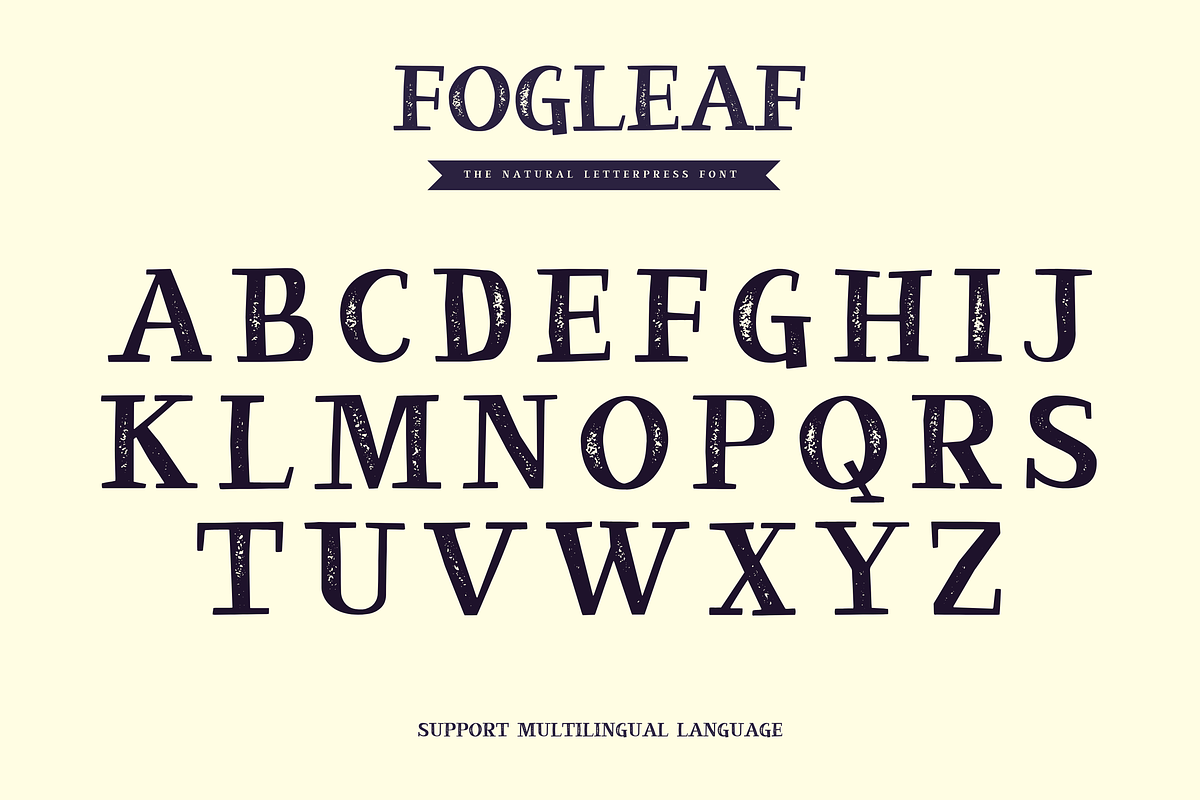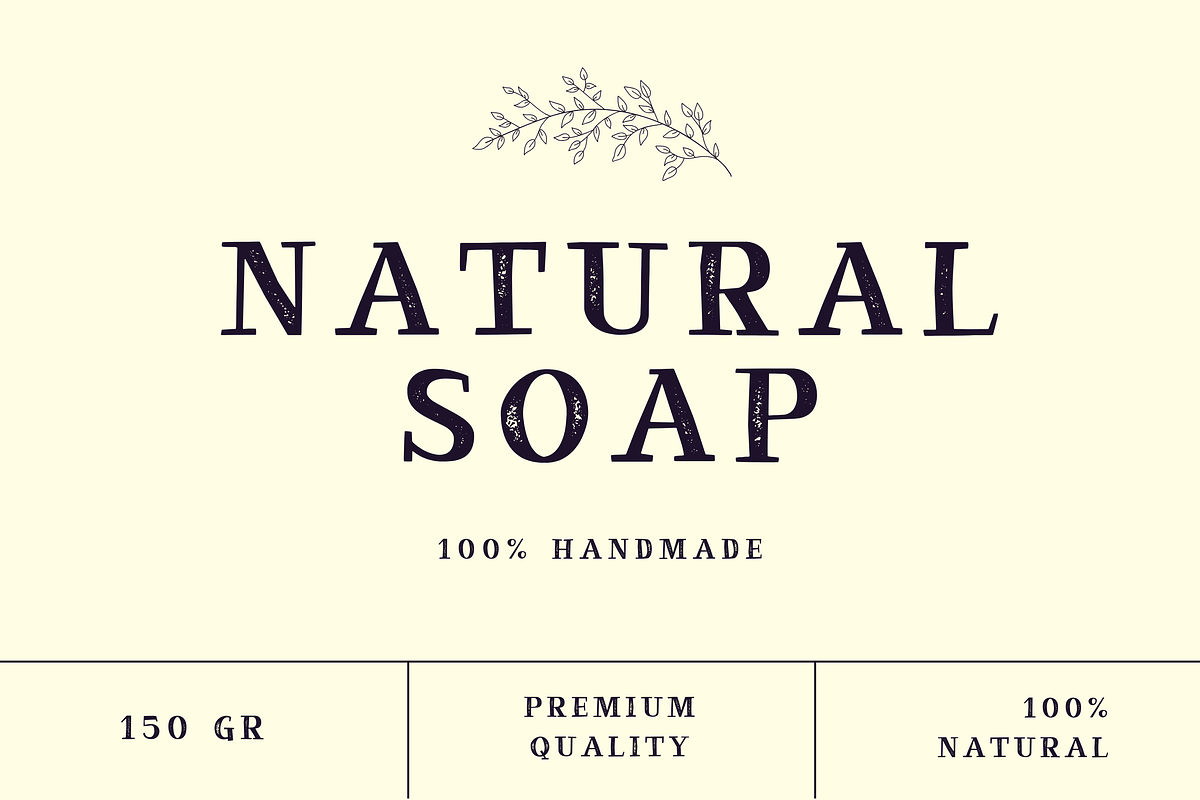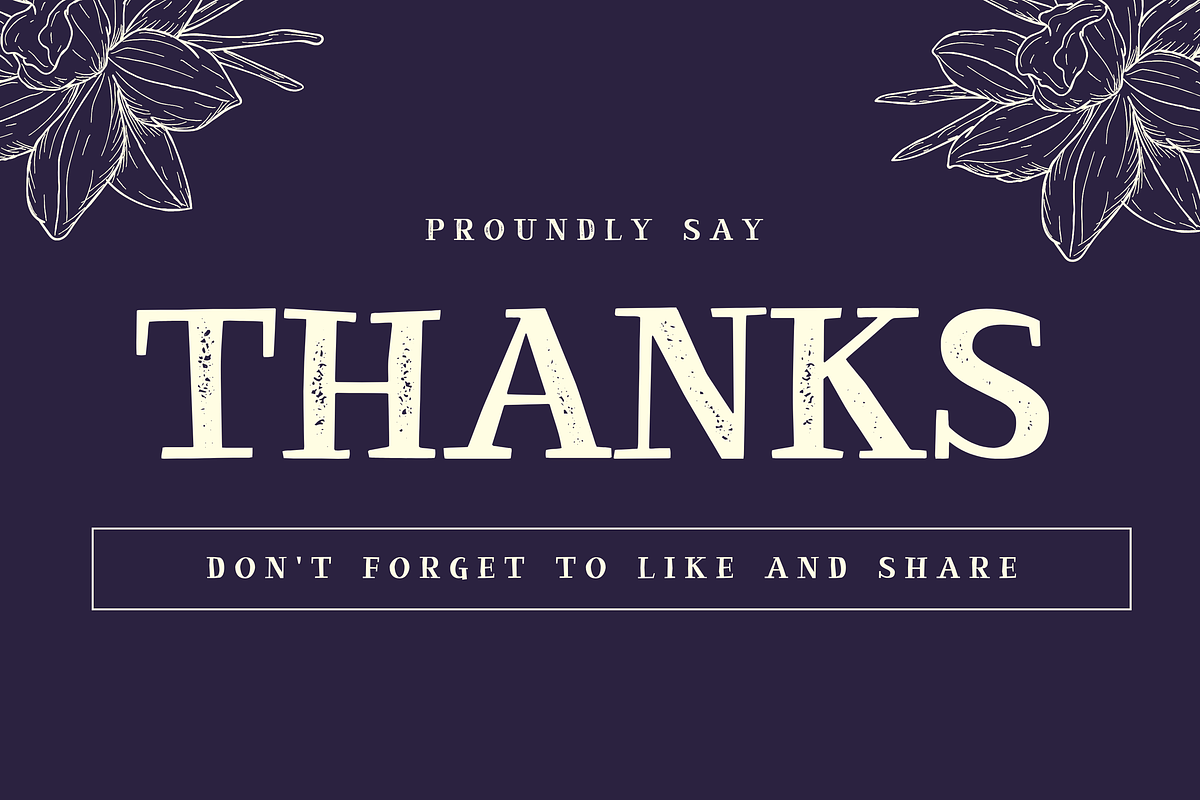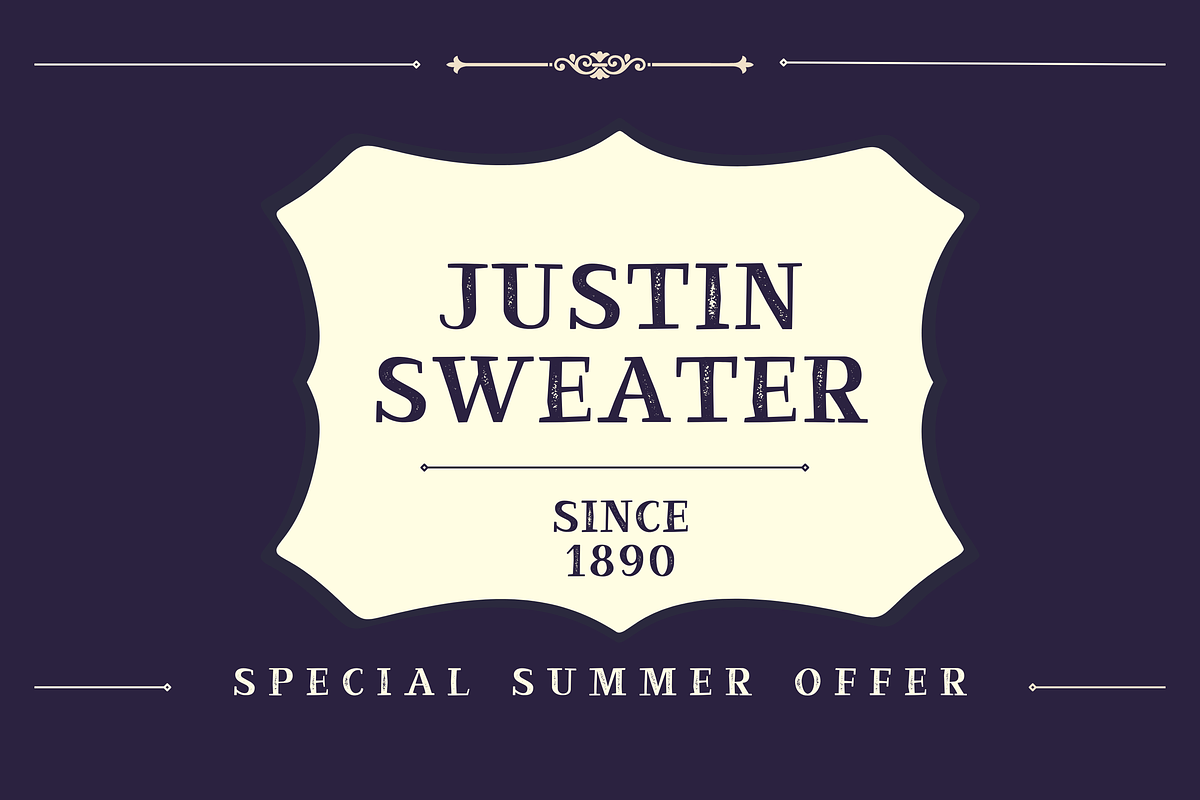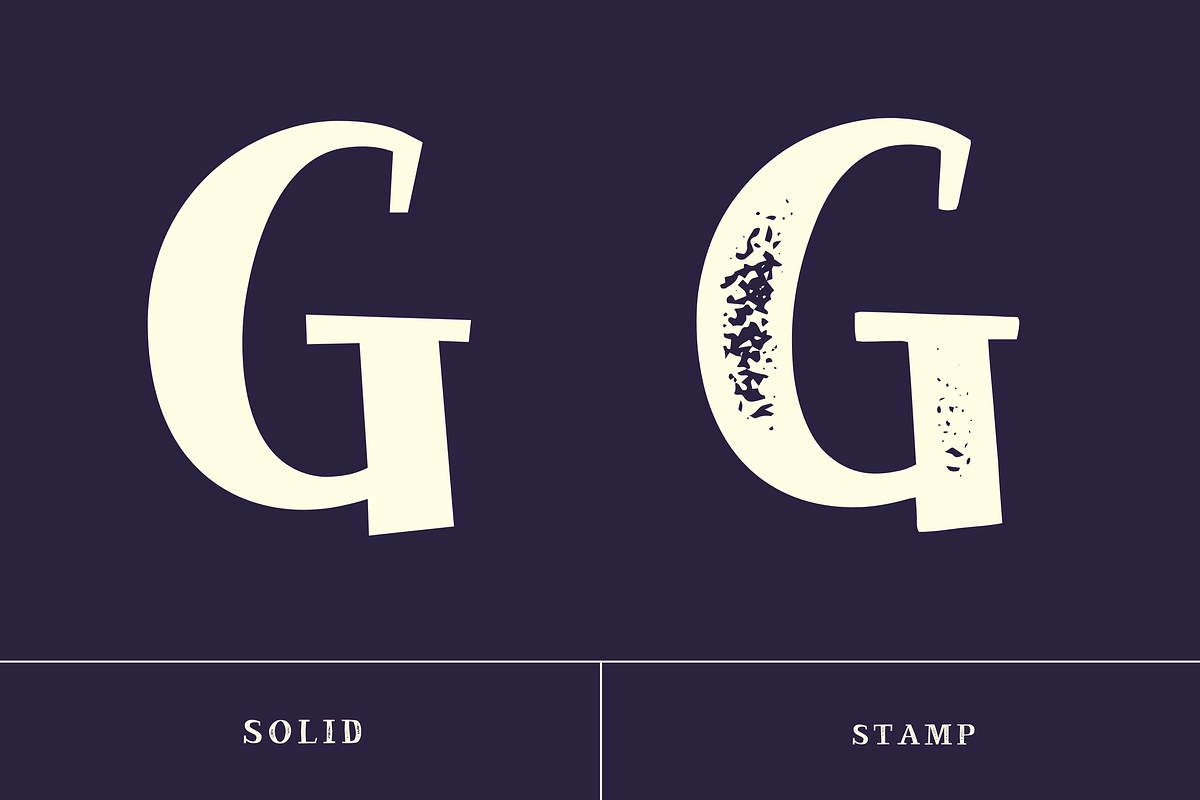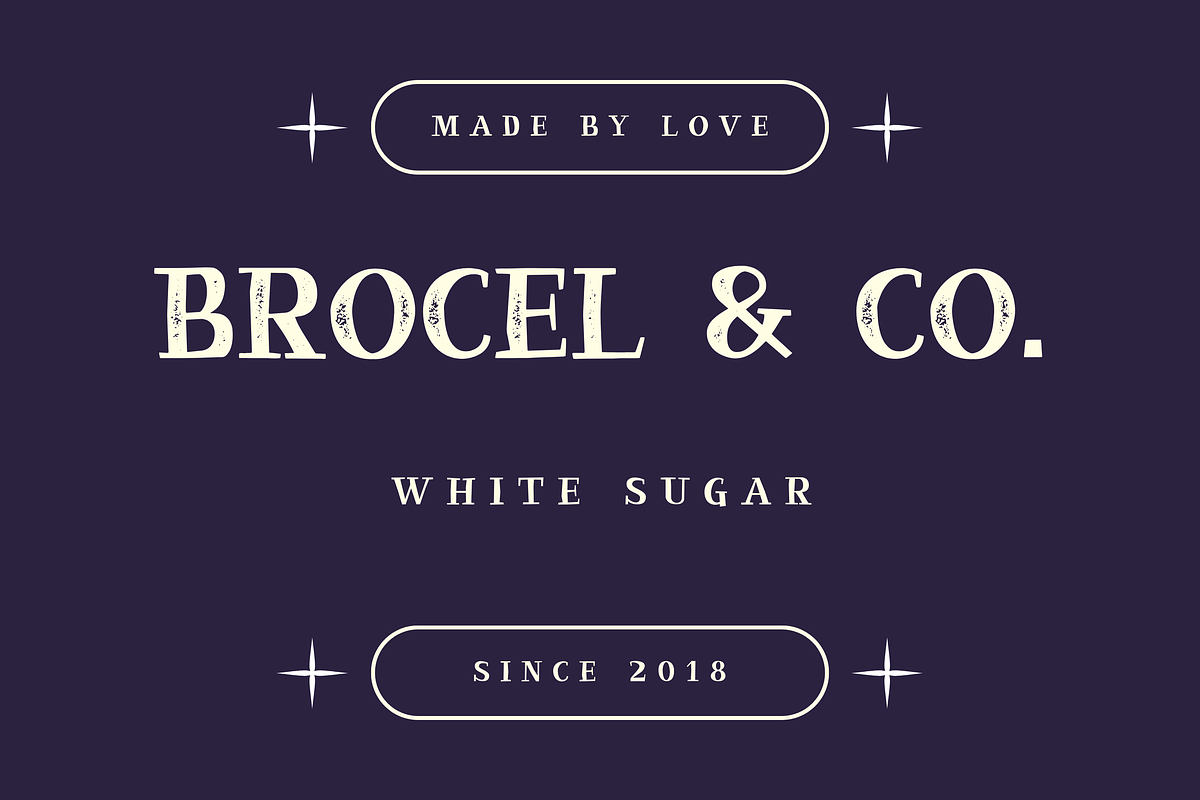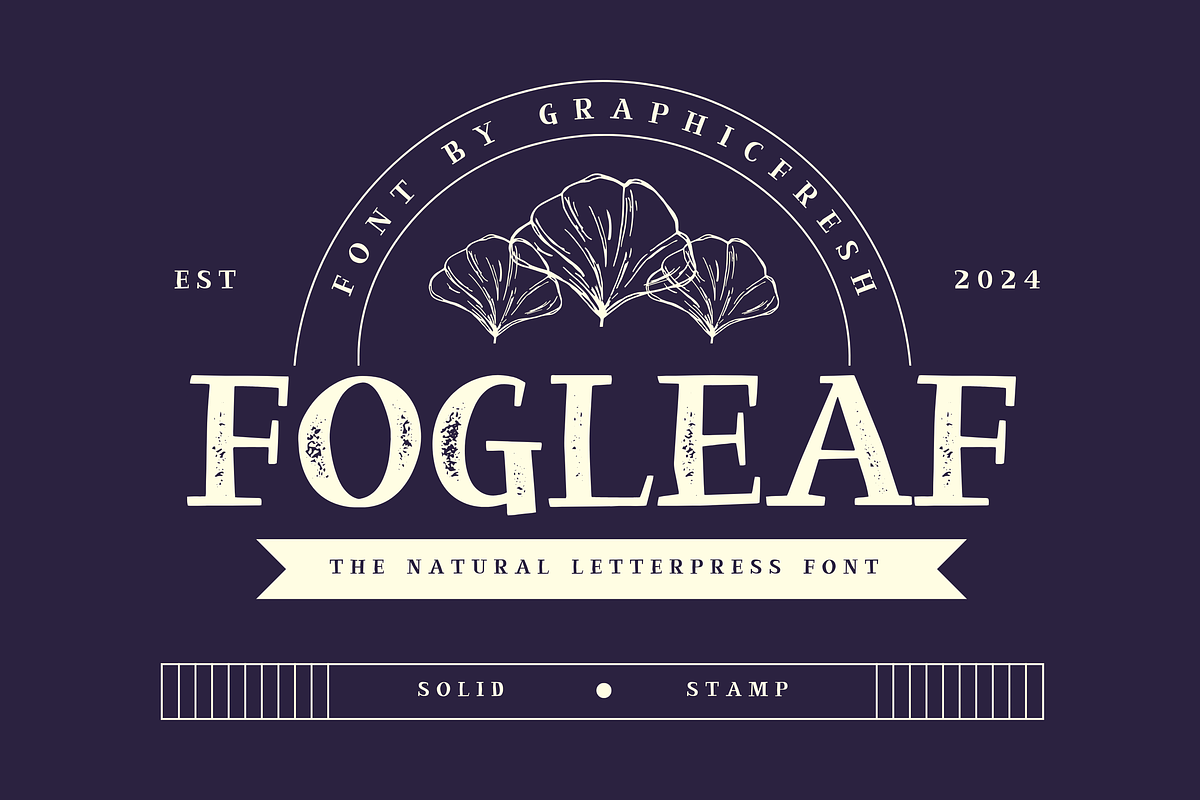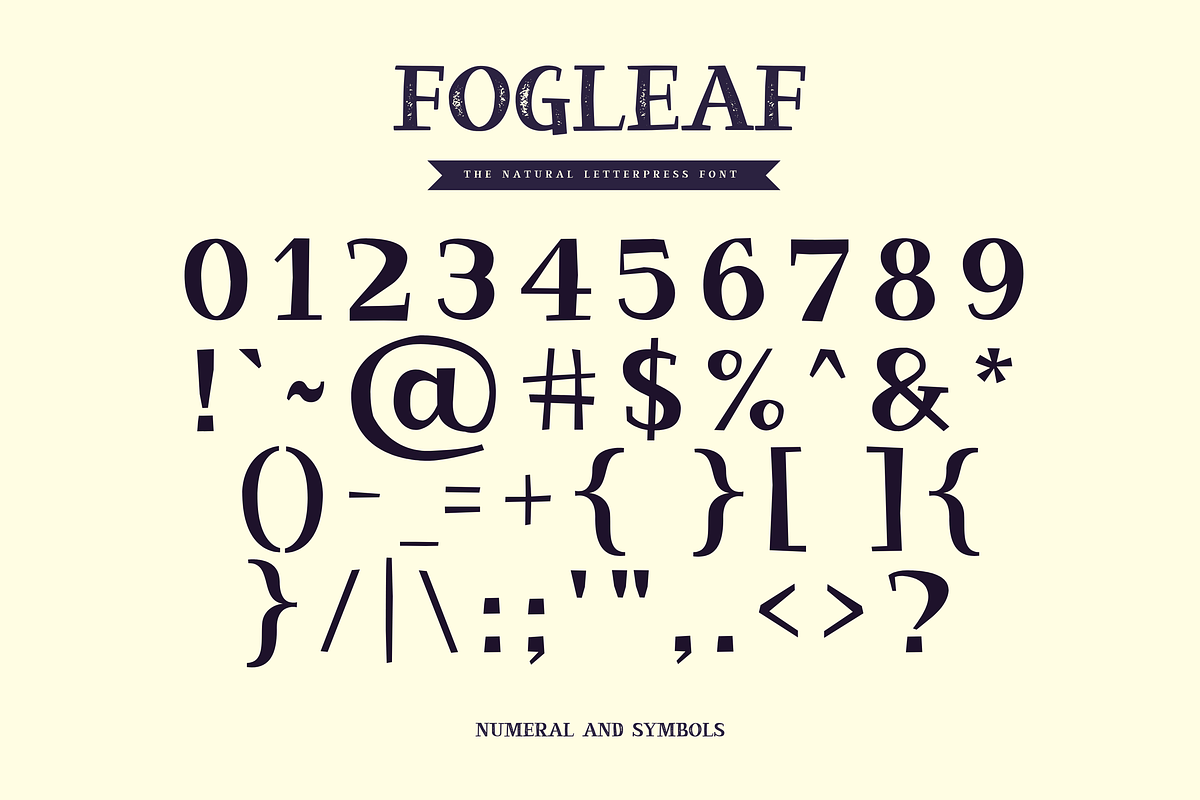
Fogleaf - The Natural Letterpress
Our Handwritten Serif Vintage Font is a unique blend of traditional serif elegance and the personal touch of handcrafted design. Ideal for projects seeking a vintage and letterpress look, this font adds a classic yet intimate feel. It's perfect for branding, editorial work, and print media, offering a balance of sophistication and approachability.